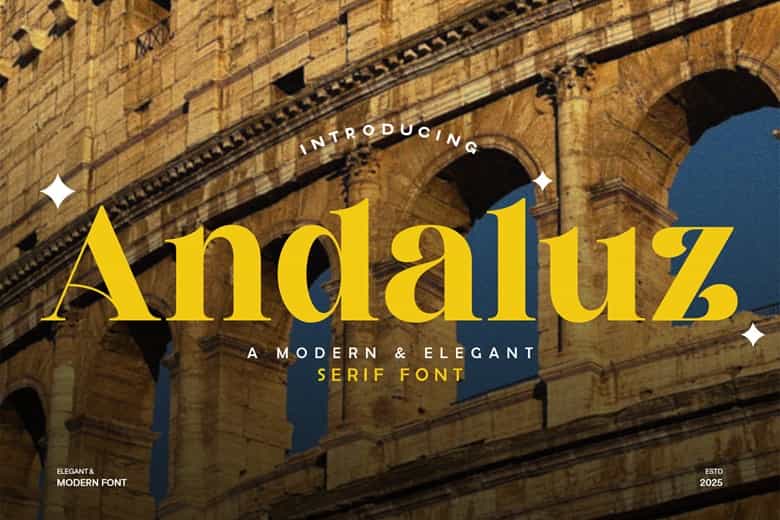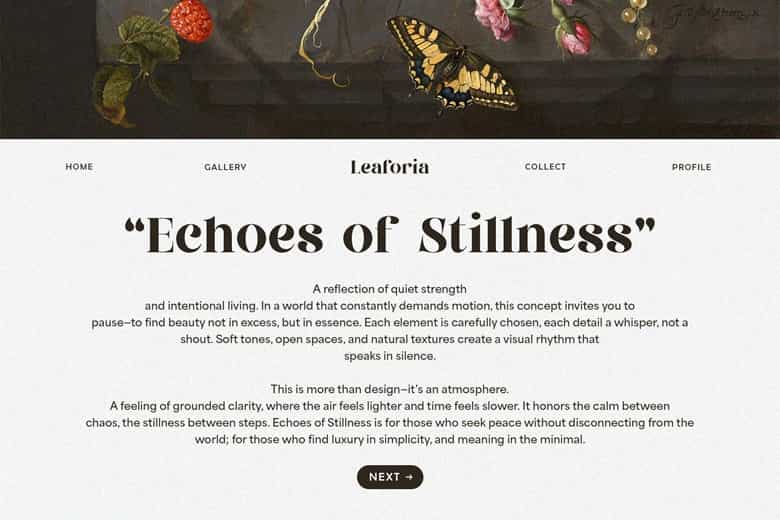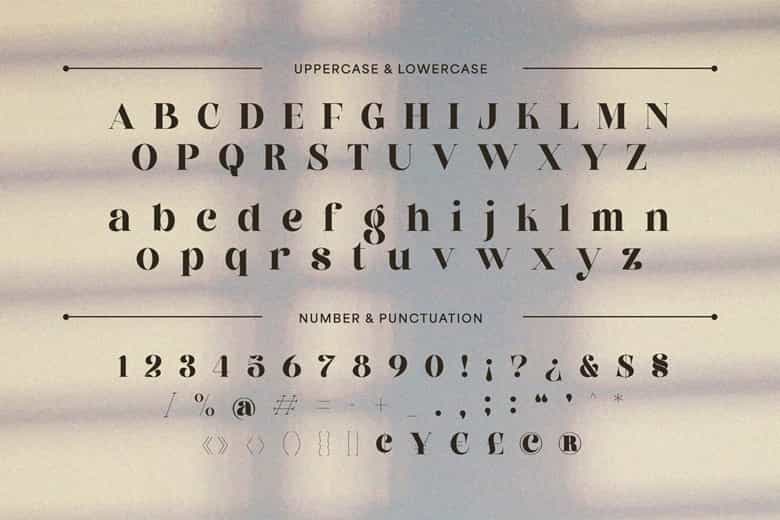
Andaluz is a fascinating contemporary and elegant serif typeface that graciously combines the vintage style with a modern one. Andaluz was designed with timelessness in mind and can be used to convey the image of luxury, editorial, high-end packaging, architectural, cultural, and projects where the finest representation is required. It has a nice balance of proportions, as well as unique-looking serifs granting excellent readability and strong visual interest.